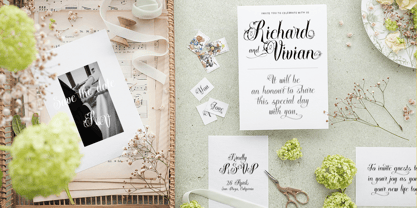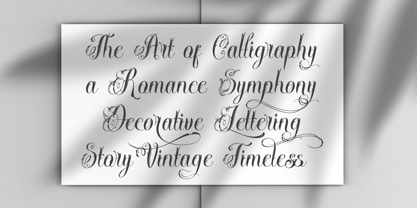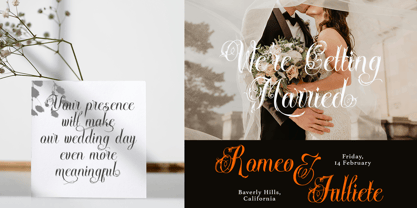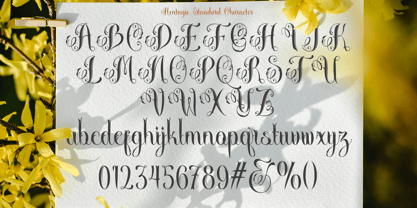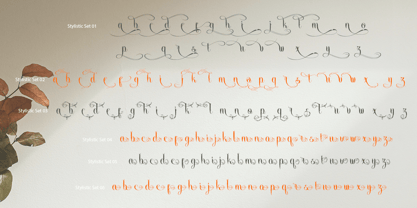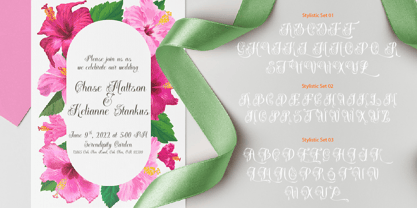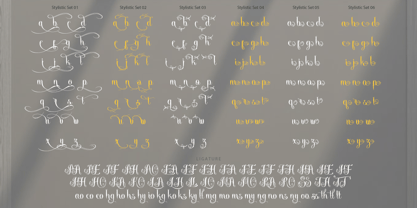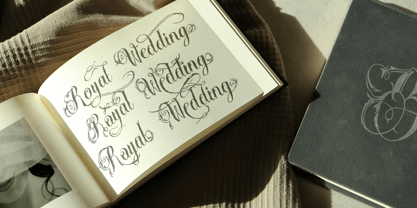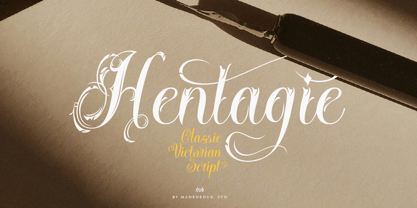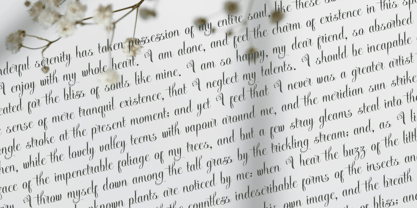
Hentagie
by madeDeduk
The Hentagie Font Family was designed by madededuk and published by madeDeduk. Hentagie contains 2 styles and family package options. More about this family
Introducing Hentagie is a classic victorian script featuring refined ornamental curves and elegant details in every character. Its graceful and flowing letterforms create a classic, exclusive, and sophisticated impression, inspired by traditional European typography with strong artistic influence. This font is ideal for poster titles, premium logos, formal invitations, exclusive branding, and decorative designs that aim to convey a sense of elegance and luxury. With a strong yet balanced character, it naturally becomes a visual focal point while enhancing the overall identity with a professional and aesthetic touch.
Designers: madededuk
Foundry: madeDeduk